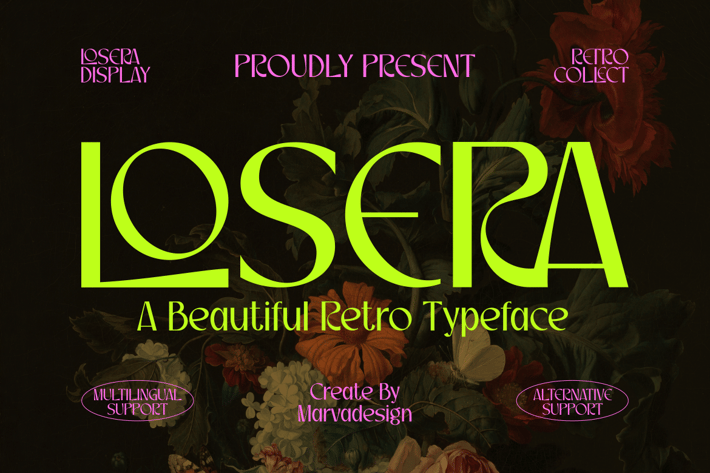
Losera - A Beautiful Retro Font
Introducing our new product Losera Font - A Beautiful Retro Font
Losera Font A Beautiful Retro Font is a Elegant and authentic display font. The font is suitable for any branding project like logo, Template Design, Product and many more. outstanding in a wide range of contexts.